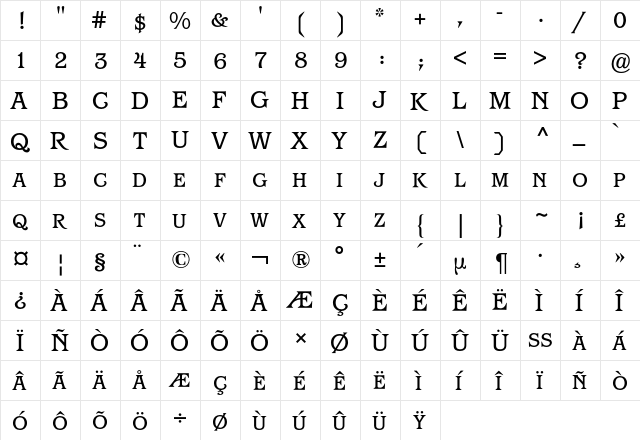
Barcelona Expert BQ Regular
Design Context for Barcelona Expert BQ Typeface
Barcelona Expert BQ offers clean, dependable letterforms without strong stylistic allegiance, making it a practical choice for designers who need flexibility.
Pro Tip: Use Barcelona Expert BQ in both headline and body roles to test its range before committing to a single application.